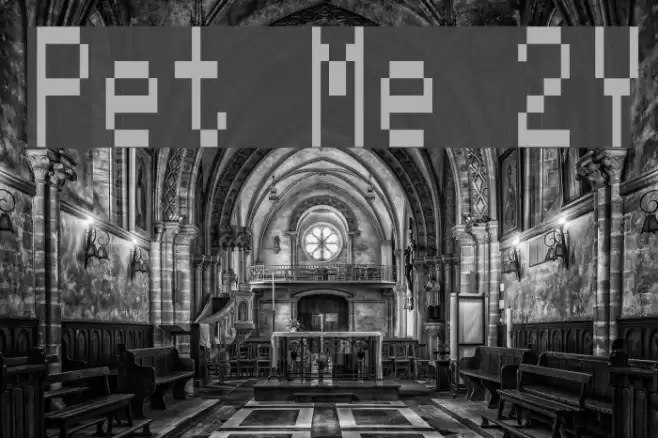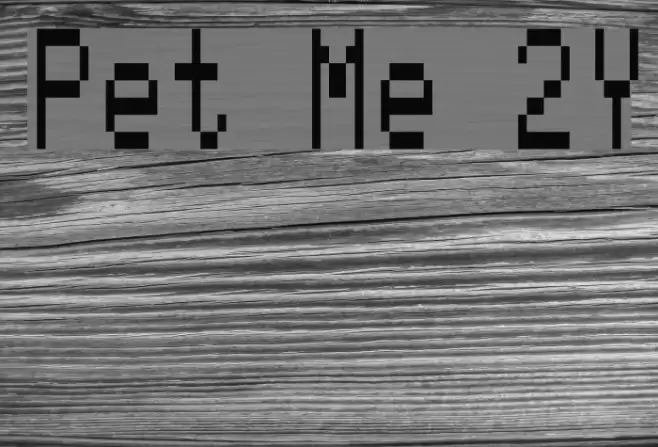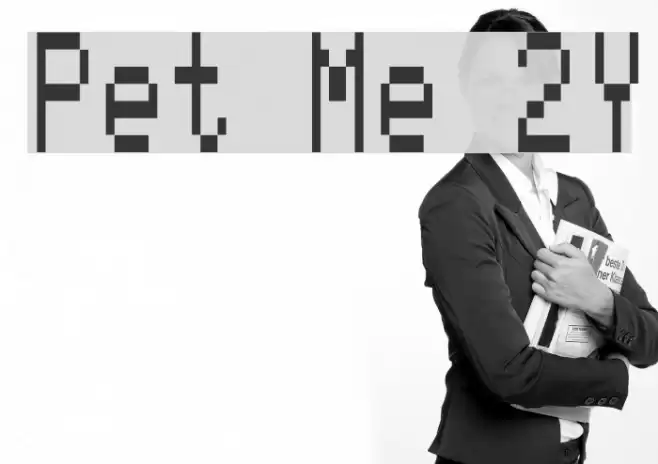
Pet Me 2Y Font
Pet Me 2Y Description
This font features a pixelated, blocky design reminiscent of early digital displays and retro video games. Each character is constructed with a grid-like precision, giving it a distinctly digital and geometric appearance. The uppercase and lowercase letters maintain a uniform height, contributing to a monospaced feel, although the actual spacing may vary slightly. The numerals and special characters follow the same pixelated style, ensuring consistency across all glyphs. This font's nostalgic aesthetic makes it ideal for projects that aim to evoke a sense of vintage computing or gaming. Its clear, bold lines ensure readability even at smaller sizes, while the unique design adds a playful, tech-inspired touch.
A pixelated, retro-style font with a digital, blocky appearance from Uncategorized fonts.
- Proposed Projects: Perfect for retro video game designs, tech-themed posters, digital art projects, and any creative work that seeks to capture a vintage digital aesthetic.
- Overall Style: Retro, Digital
- Use Case: Logos, Display text, Digital art